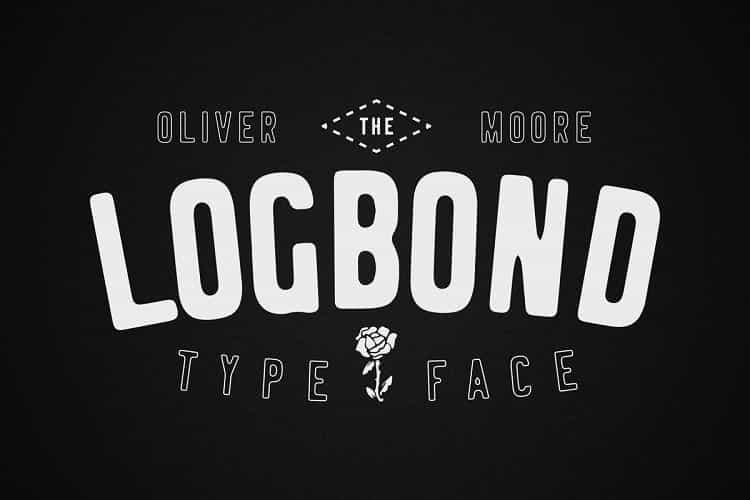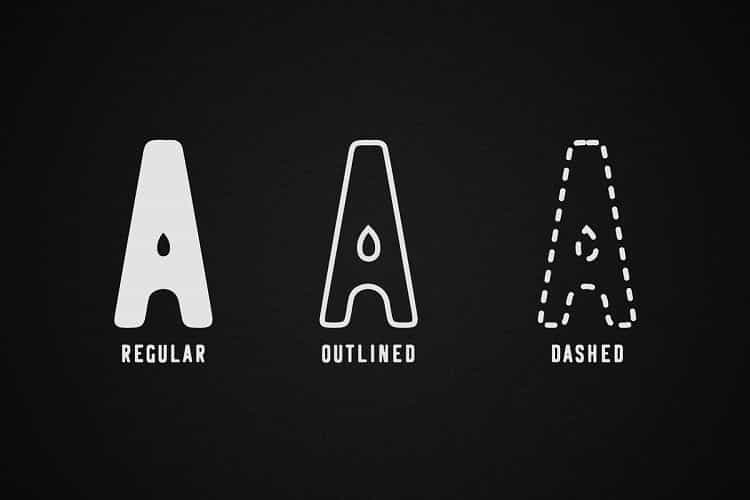
Introducing Logbond Font. Oliver Moore, the author of this font is a premium one that can be bought on creativemarket. However it was great and now you can download it for free today. Logbond is a tall condensed font, with the special stamp effect that gives user vintage atmosphere in his work. This type family is the ideal one for your design project, typography, prints or tattoos.